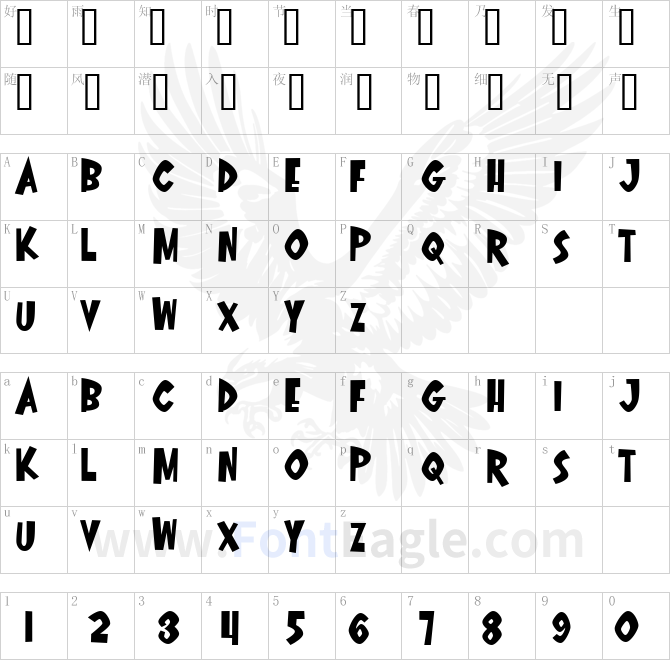
Oyster-Bar-BTN-Exp-Bold is a great font, widely used in graphic design, single-page menu design, poster design and other fields, and is deeply loved by designers.Oyster-Bar-BTN-Exp-Bold download.